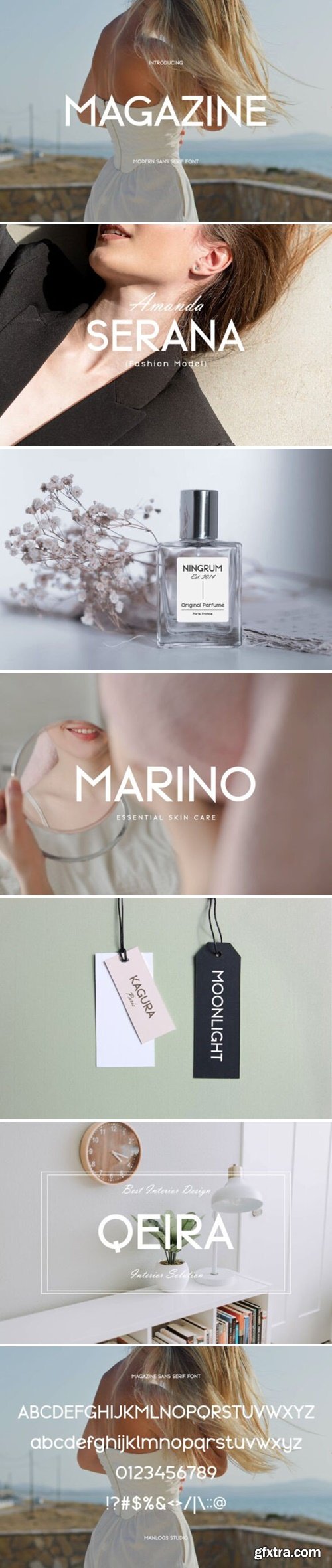
Magazine is a sans serif font that comes with a modern minimalist design, perfect for design projects that emphasize a clean and neat look. Its smooth lines and balanced proportions create a professional and timeless impression. Suitable for use for various purposes, ranging from logo design, headlines, branding, craft design, apparel design, cosmetic products, label tags, interior design, fashion, weddings, websites and others.